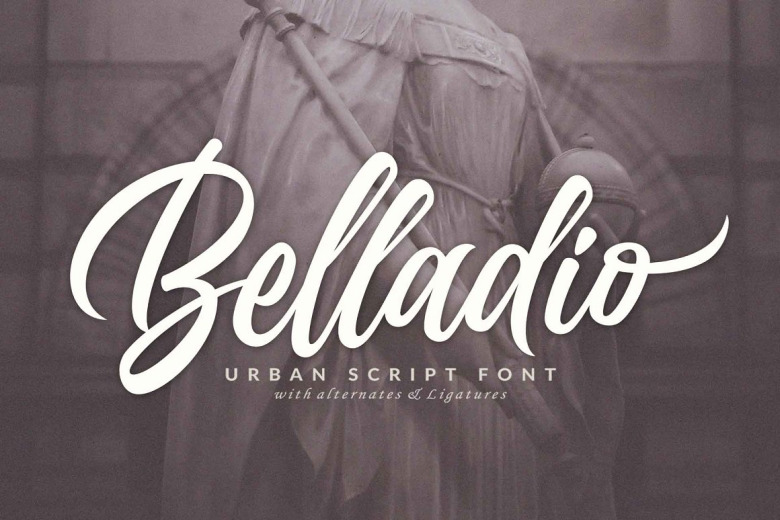
Belladio Font
Belladio is an Urban Script Font. I made this font to create the best logotype for your Brand or your clients, making them have an urban-nature sounded. An also you can use it as all of graphic design needs such as badge, sign champion, sport, Esport team; headline, racing-design businesses-Poster & T-shirt/apparel. Belladio family is designed to be fit your personal character strong, confidence, dynamic, readable Energic and so many more.
Belladio Urban Script Font